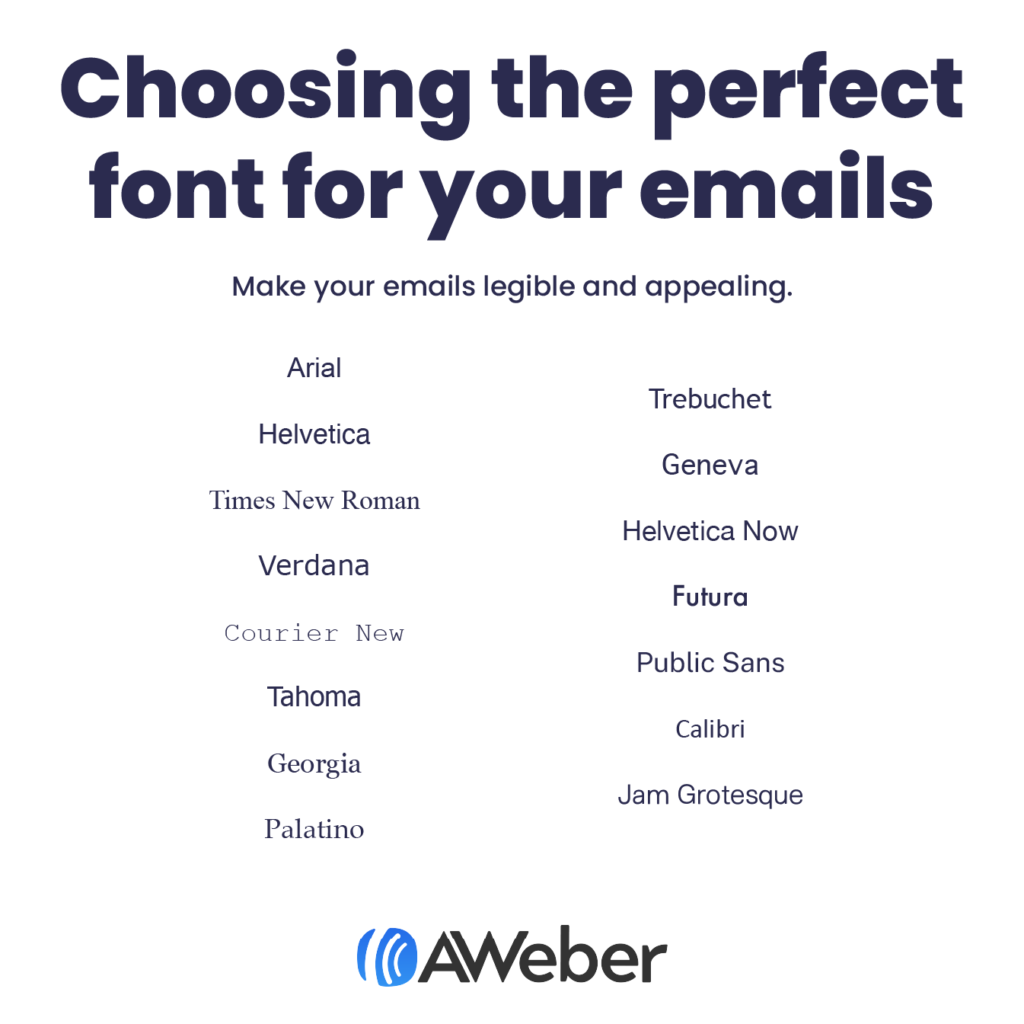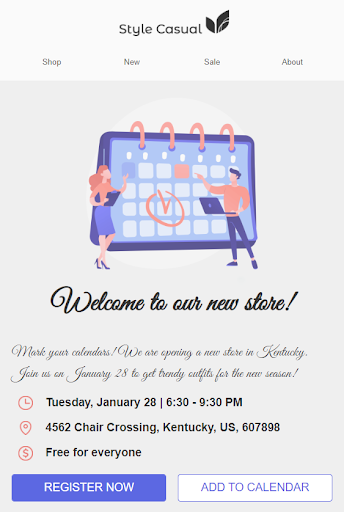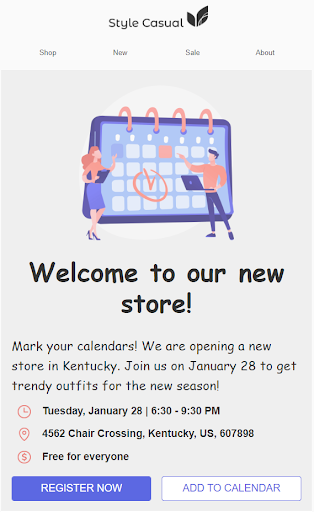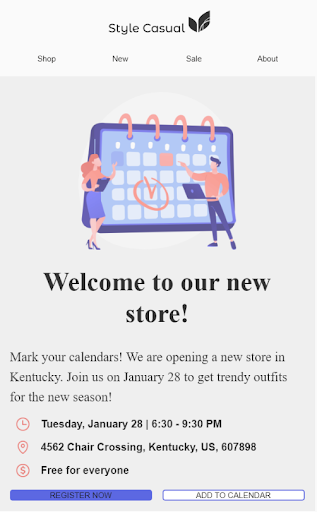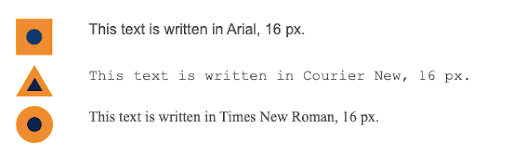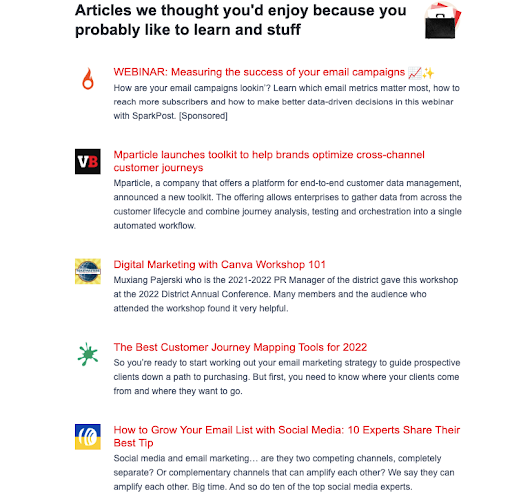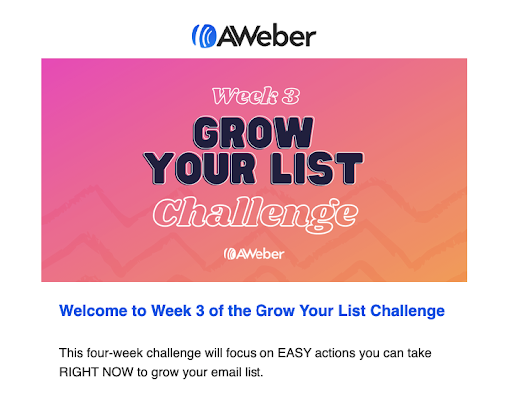
So you want to make your emails look great, but you’re not a designer? No worries! Here’s how to pick the right font.
Coming up with the best fonts for emails can be a challenging and time-consuming task. Which typeface will improve the readability of your message? What color combinations and font size should you use to hold your subscribers’ attention?
We’ve got you covered! By the end of this article, you’ll know how to choose the best typeface and font settings for your brand. Plus, we’ll give you an expert’s list of email-friendly fonts. Read on to learn the basic principles of typography for your emails.
Why fonts matter
People usually spend about 10 seconds looking through brand emails. Besides a catchy subject line and attention-grabbing imagery, typography is one of the critical elements users notice about your message. To make the most of these 10 seconds, it’s crucial to use the best fonts for emails that you can.
Email-friendly fonts that render correctly in all the major email providers will make your messages easier to read. Fonts can also affect the tone of your company’s message.
Here are two principles to follow so your emails have the same vibe as your company, look great, and are easy to read:
Align your font with your brand
Did you know that fonts can be professional, casual, technical, etc.? It’s true! Choosing a font that represents your company’s voice and style is crucial — and not just on your website. In your emails, too!
If you don’t know where to start, choose a font that complements your visual branding. It will make your messages feel more familiar and help you gain trust with your audience, leading to better engagement.
Make it easy to read
If your emails are hard to read, they’re less likely to be read. Legible fonts help readers scan your email, identify key points, and make quick sales decisions.
Even something as minor as italics can affect your emails’ readability. Research shows that people need 50% more time to read italic font styles in contrast to regular typefaces.
Serif vs. sans-serif fonts
There are two major types of fonts to consider when designing your messages: serif and sans serif.
Serif fonts are equipped with a small tail or “serif” at the end of every symbol. The most common representatives of this family are Times New Roman and Georgia.
Sans-serif fonts come without such a “tail.” The most recognizable examples of these fonts include Arial and Helvetica.
15 email-safe fonts
The best fonts for emails can be viewed properly across all email providers. Whether your customers use Gmail, Apple Mail, Yahoo, or Microsoft Outlook, these fonts will look the same.
Here’s a list of email-safe typefaces that will look consistent, no matter which email client your subscribers view them in:
1. Arial
Font family: sans-serif
Arial’s soft curves make this typeface look less stiff. It may not be the perfect match if you require something extra special, but it’s a fantastic option for users looking for a classy font to complement their emails.
2. Helvetica
Font family: sans-serif
This trendy font is an excellent pick for catchy titles and slogans. But its letters are placed close together, making it tough to read for longer texts.
3. Times New Roman
Font family: serif
Well, you are definitely familiar with this one. Times New Roman is a default option safe to use anywhere. Because of its narrow letters, we recommend you apply this typeface to headings only. You can also combine it with edgy imagery to develop a mix of traditional and trendy styles.
4. Verdana
Font family: sans-serif
Verdana was designed for low-resolution screens. With its wide low-case letters, the font is an excellent pick for email body copy.
5. Courier New
Font family: slab-serif (a form of the serif typeface)
This font has an authentic typewriter-like appearance. It’s more suitable for screenwriting and manuscripts, but Courier New can be a nice match for your emails if it aligns with your niche.
6. Tahoma
Font family: sans-serif
Designed for on-screen use, this typeface has the same length of its upper and lower case characters. It resembles Verdana, but Tahoma has narrower symbols and tighter letter spacing.
7. Georgia
Font family: serif
You’ve probably seen Georgia in newspapers or books. It’s a perfect option if you want your content to look official and trustworthy. You can also use it for longer emails as its wide-spaced characters provide a high level of legibility.
8. Palatino
Font family: serif
This sophisticated font with thin lines was made for titles and ads. Palatino makes it easy to read longer text passages combined with visual content.
9. Trebuchet MS
Font family: sans-serif
Equipped with subtle curves, this typeface will give your email an artistic touch. Its decorative features don’t look distracting, but we still recommend you use Trebuchet MS for short copy as it’s crucial not to overload your readers.
Final thoughts on the best fonts for your emails
Using legible and eye-catching fonts will make your email stand out from the crowd of competitors and bring value to your audience. Once your message is opened, the proper font style becomes one of the main factors that persuade recipients to continue reading.
With our list of the best fonts for emails and how to use them, you can create appealing and responsive messages in no time.